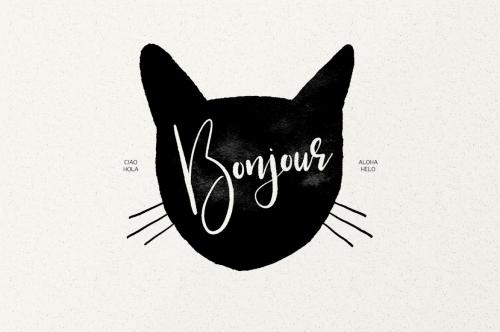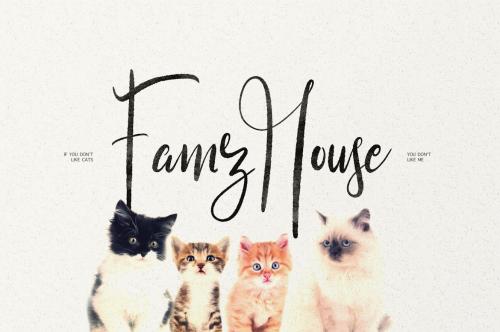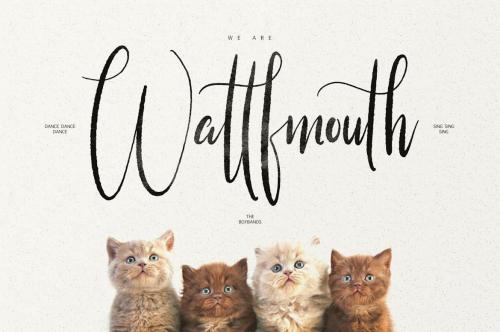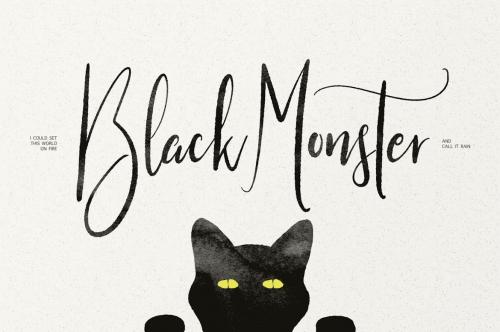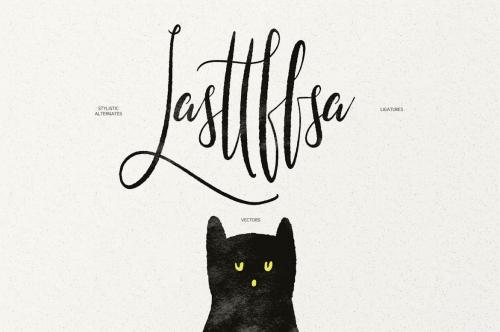
莉little Kittens 贝斯 书法 字体
Little Kittens Brush Calligraphy Font
Give your designs an authentic brush handcrafted feel. "Little Kittens" is perfectly suited to stationery, logo, typography quotes, magazine or book cover, website header, clothing, branding, packaging design and more. Included Stylistic Alternates and Ligatures. This font available OTF, TTF, Ai, EPS and Web Fonts.
Little Kittens Typeface
Give your designs an authentic brush handcrafted feel. "Little Kittens" is perfectly suited to stationery, logo, typography quotes, magazine or book cover, website header, clothing, branding, packaging design and more. Included Stylistic Alternates and Ligatures.